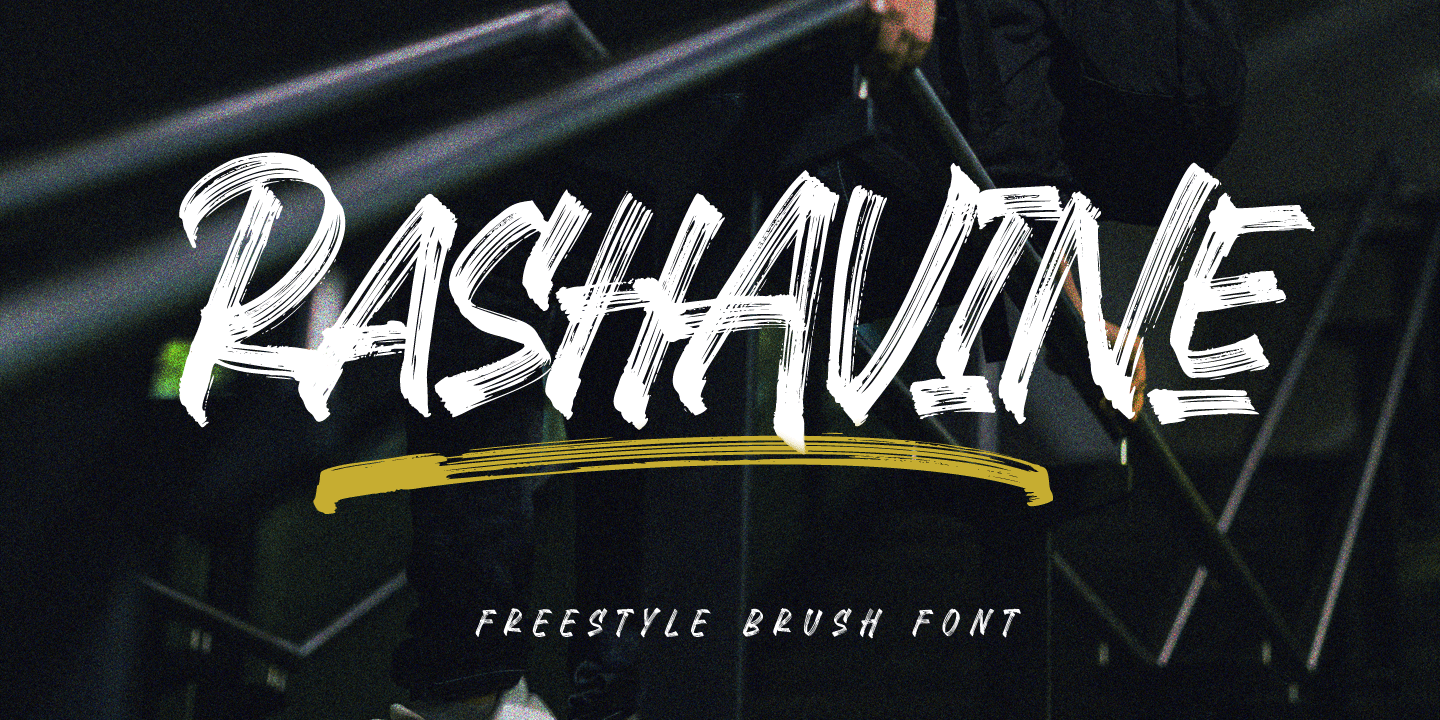
The Rashavine Font excels in various design applications including elegant vineyard branding, sophisticated wine label design, premium botanical packaging, refined organic food marketing, natural wellness communications, graceful nature-inspired identities, flowing botanical illustrations, artisanal craft wine promotions, elegant farm-to-table restaurant signage, and distinguished agricultural projects that demand vineyard elegance and botanical sophistication.
What makes the Rashavine Font exciting is its beautiful fusion of botanical grace with vineyard elegance through letterforms that capture the essence of growing vines and the sophisticated culture surrounding fine wine production. This typeface embodies the natural beauty of vineyard landscapes through carefully crafted characters that suggest the organic curves of grape vines, the flowing movement of wind through vineyards, and the refined sophistication that characterizes premium wine culture. The font's vineyard personality makes it perfect for wineries and agricultural brands seeking to communicate natural elegance, organic quality, and the kind of sophisticated terroir that creates exceptional wine experiences through typography that literally grows with vineyard grace.
The Rashavine Font family typically includes flowing weight variations that enhance the botanical aesthetic, featuring organic styling options and extended character sets optimized for wine marketing and agricultural communications. These family options often include vine-inspired alternates, botanical decorative elements, and vineyard symbols that provide designers with comprehensive tools for creating authentically natural typography that celebrates agricultural artistry while maintaining contemporary design appeal and sophisticated wine industry standards.
Wine industry professionals and agricultural brands consistently choose Rashavine Font Free Download for projects requiring typography that communicates natural sophistication and vineyard excellence. This typeface delivers exceptional performance in wine marketing, agricultural branding, and botanical communications where establishing organic quality and demonstrating viticultural expertise is essential for consumer appreciation. The font's botanical character makes it particularly effective for organic and artisanal food applications. Download Rashavine Font Free Download today to access this elegant typeface that transforms agricultural communications with its vineyard sophistication and botanical grace, creating compelling wine experiences that honor the timeless artistry of viticulture while celebrating the natural beauty that makes vineyard culture so deeply satisfying and eternally appealing.